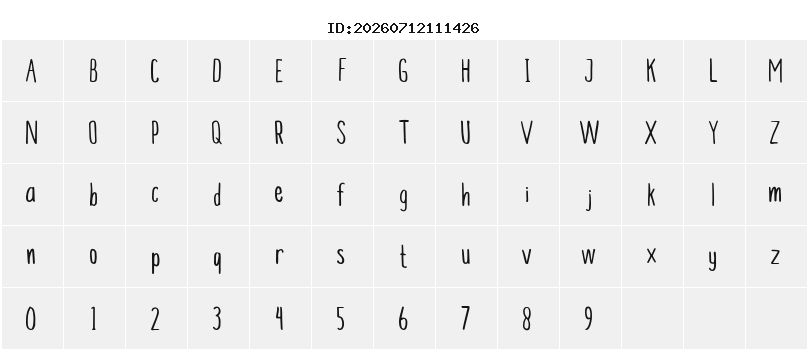
Malam Preview
• Font Name: Malam
• Full Font Name: Malam
• PostScript Name: Malam
• Character Count: 94
About Malam.ttf
Malam.ttf is a modern, elegant sans-serif font designed for ultimate readability and visual harmony. Perfect for branding, headlines, web design, and print materials.